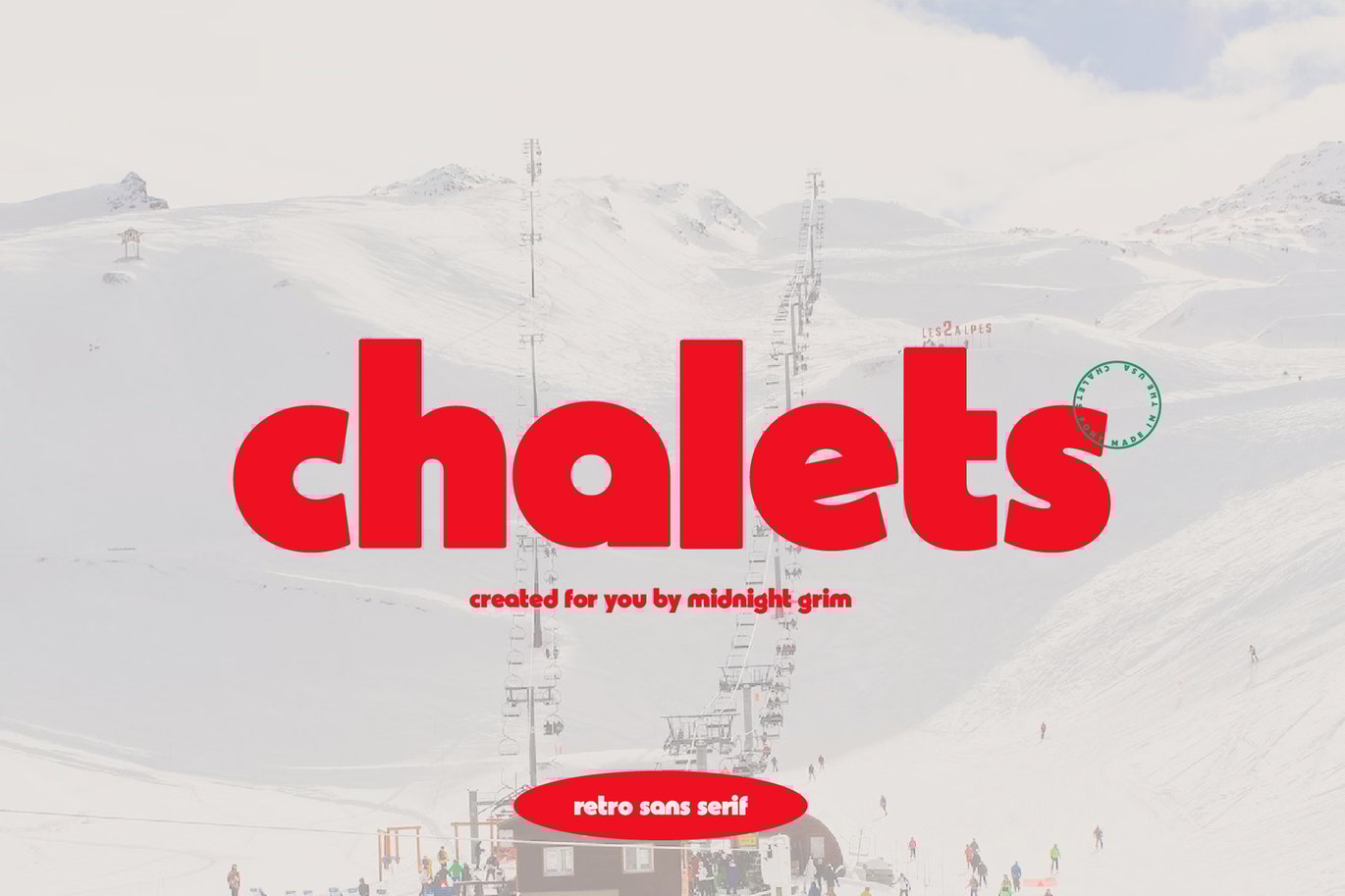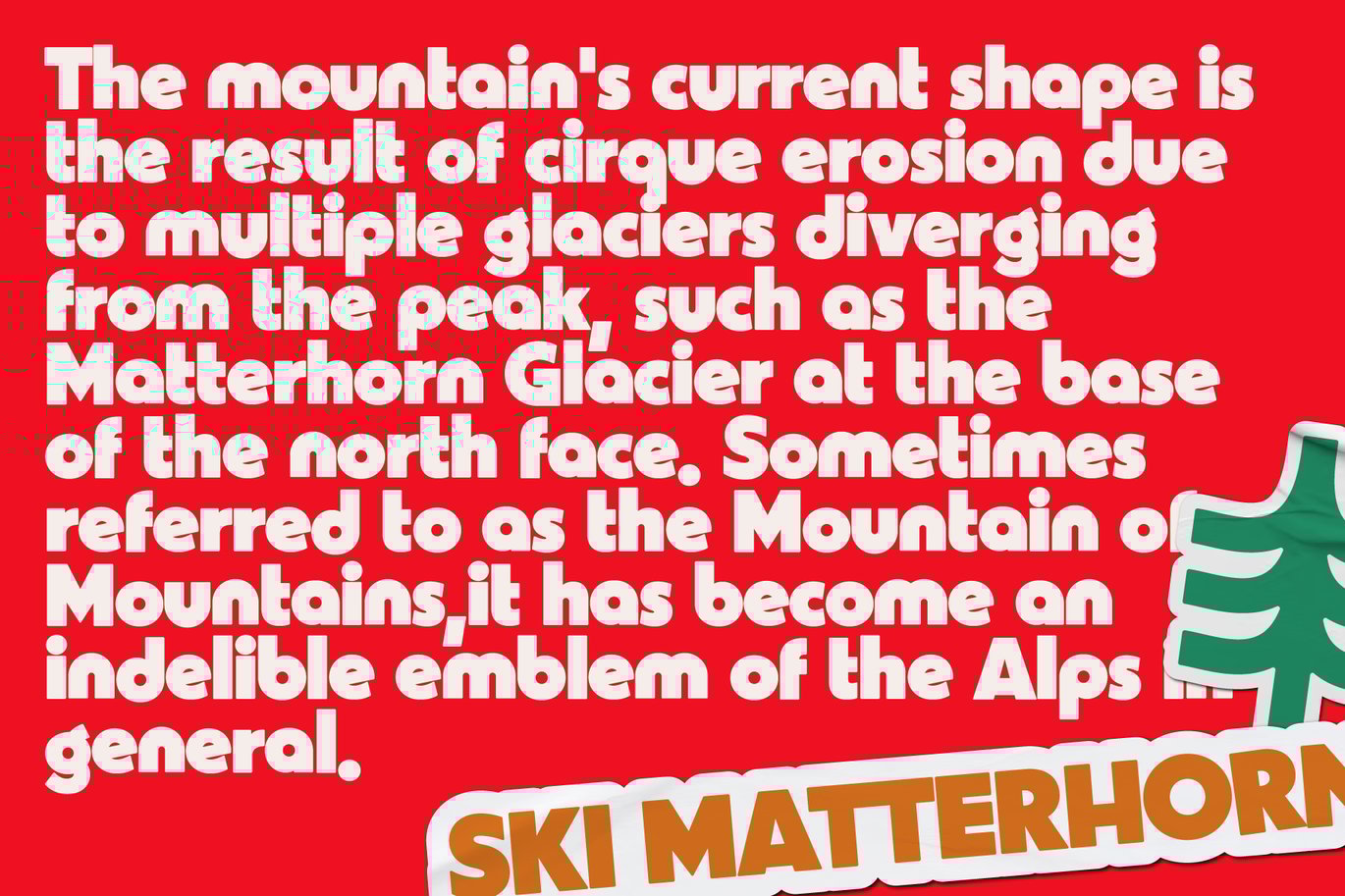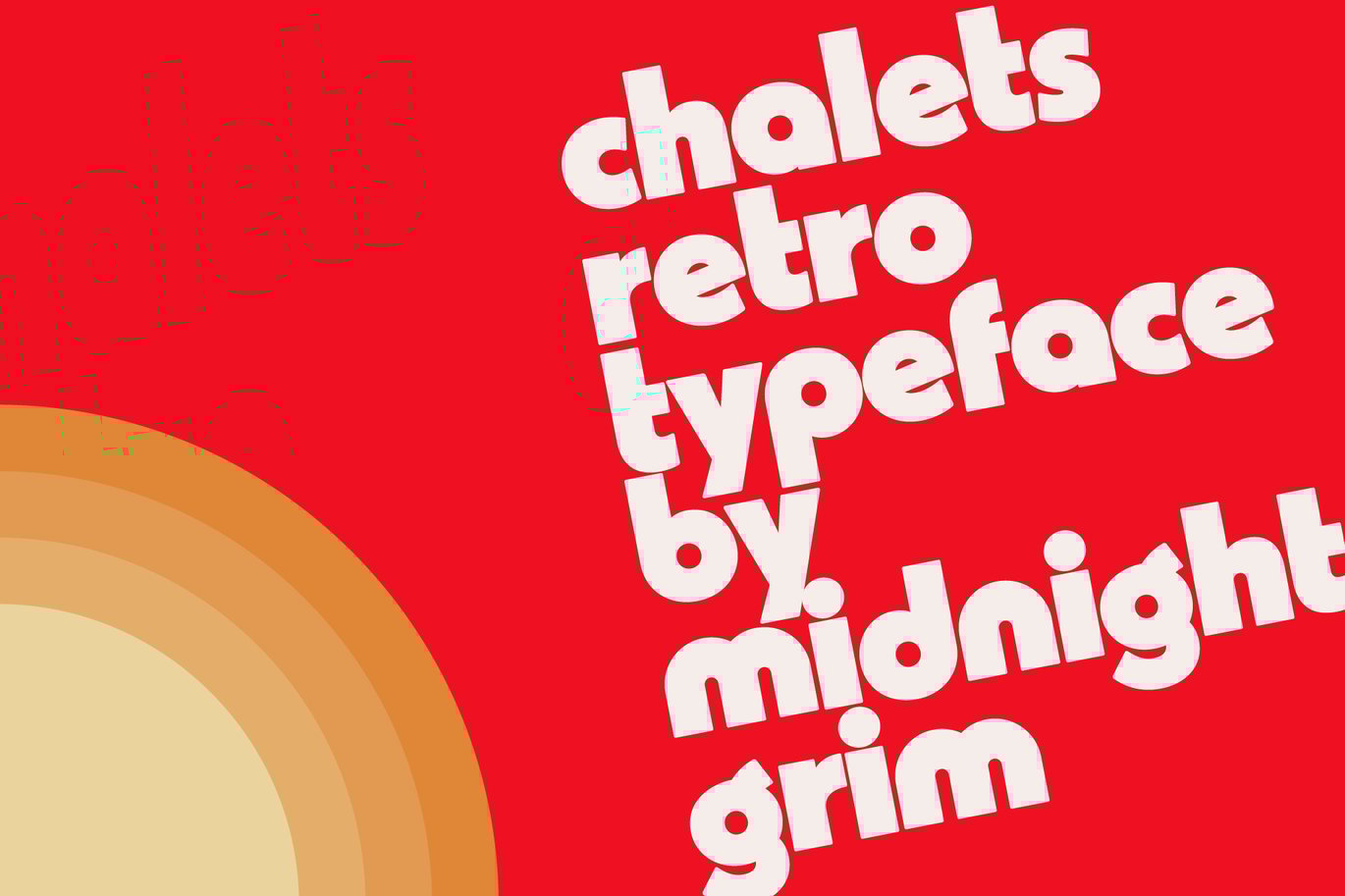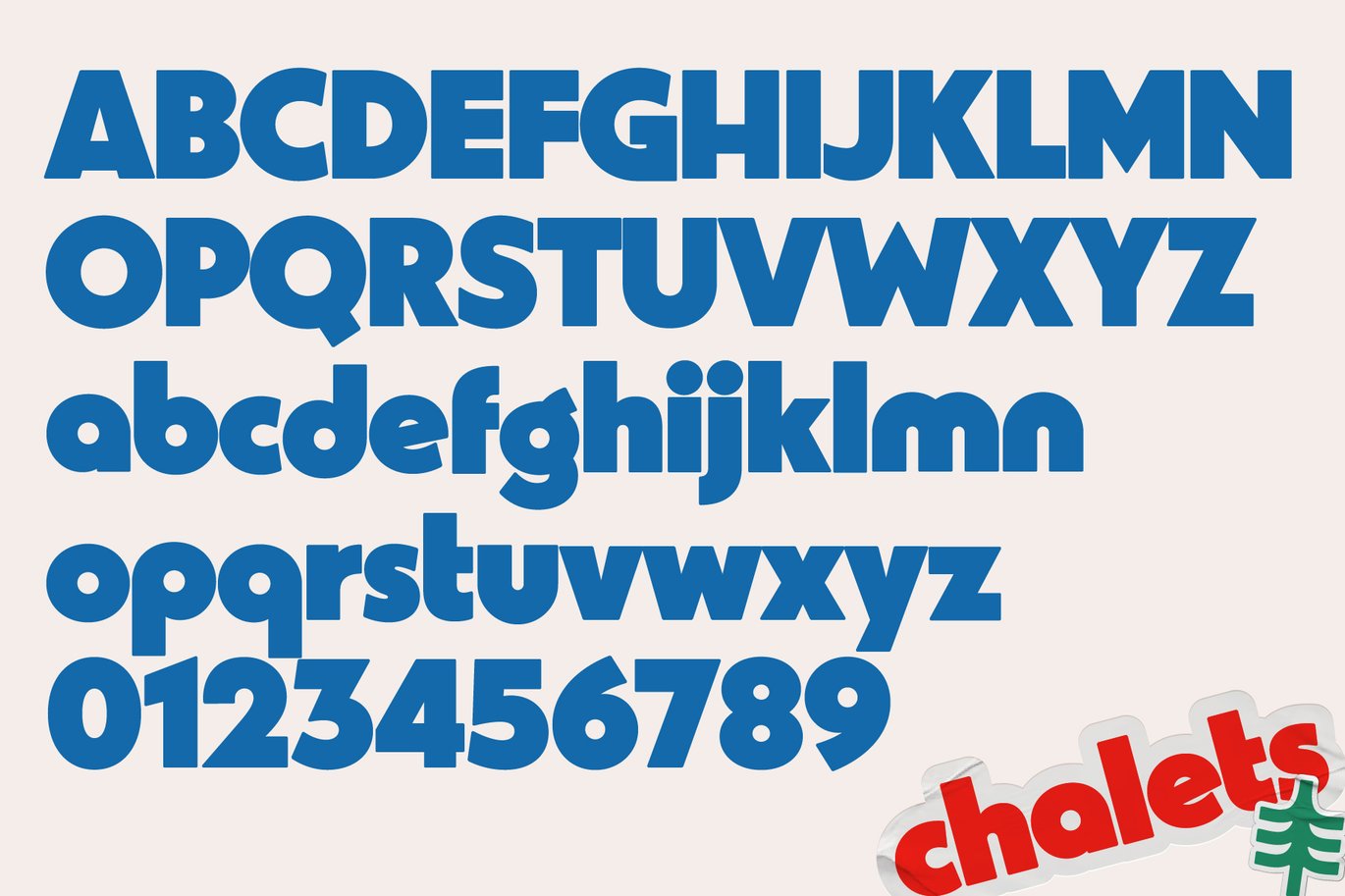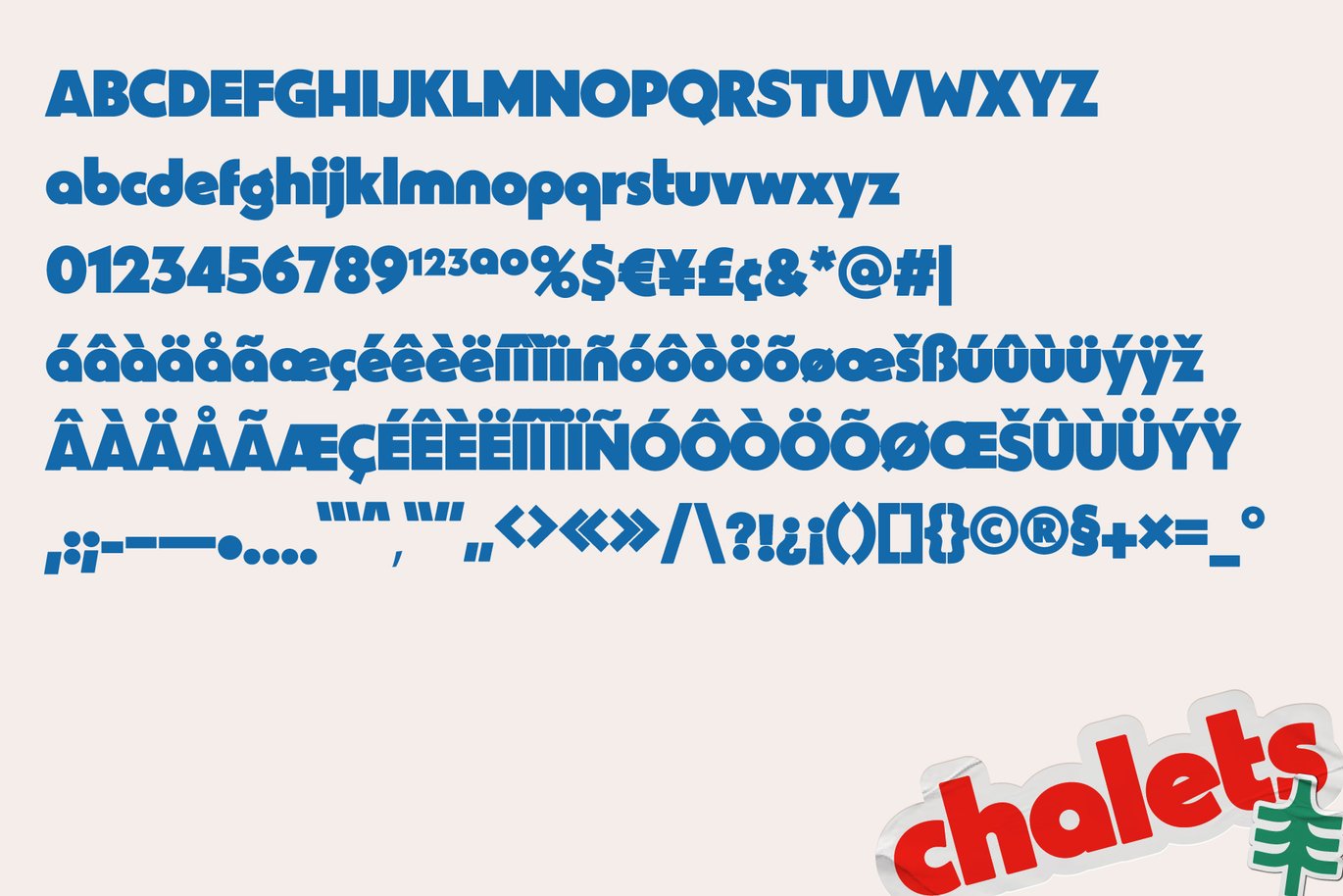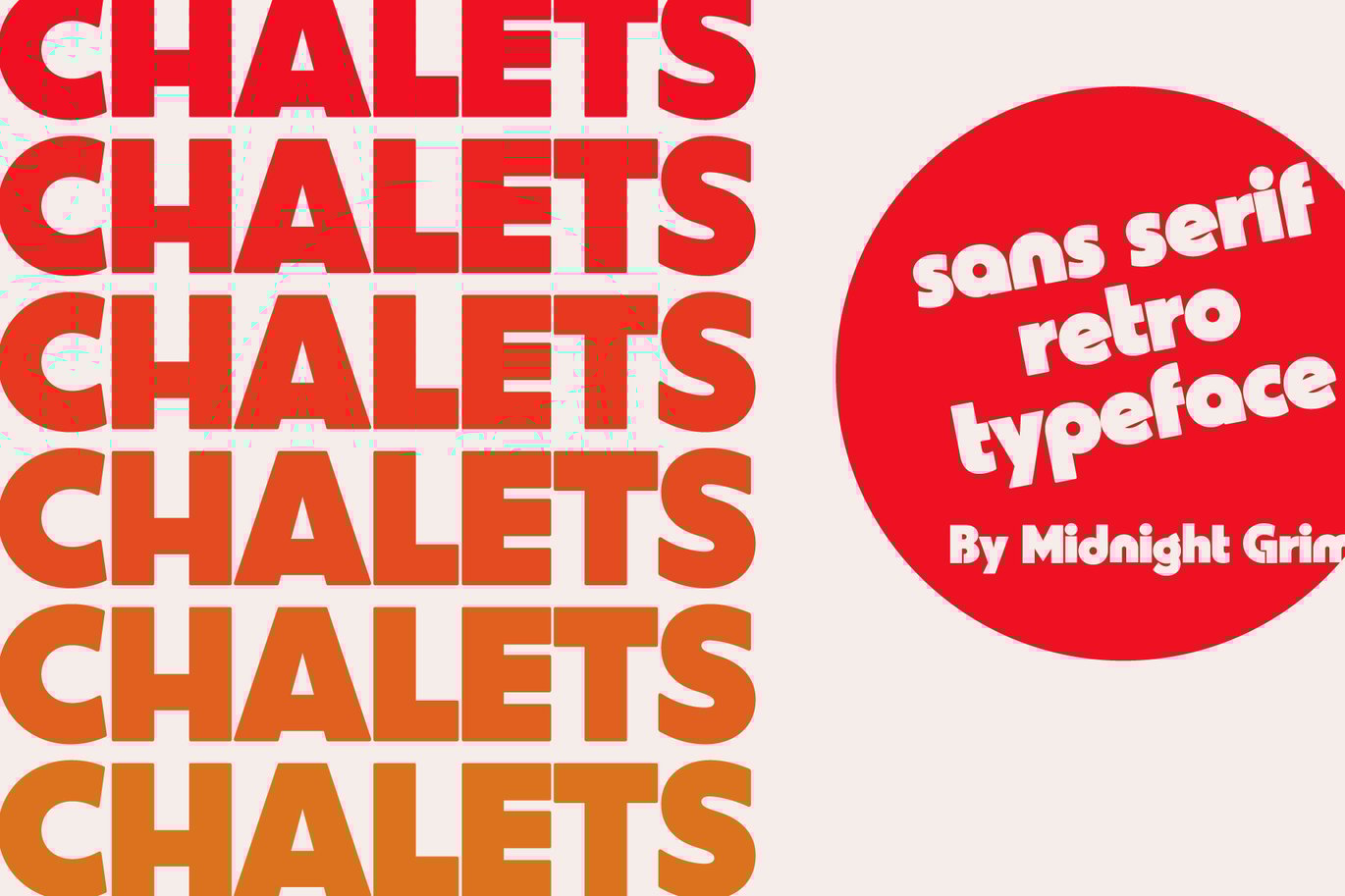
Chalets – Vintage Typeface
Ready to carve out some serious style with a typeface that shreds those vintage ski-inspired vibes? Meet Chalets, the font that’s dropping retro charm like fresh powder!
Chalets isn’t just another font – it’s a daring statement on the slopes! Its bold and powerful vibe grabs attention like a pro shredder catching big air. Perfect for carving out cool headlines and logos that ride high.
Chalets is so inviting, you’ll feel like you’re carving through fresh tracks with every letter. You’ll be eager to rock it in all your design adventures, from the peaks of branding projects to the terrain parks of posters and logos.
So, get your skis on, because Chalets is the real deal! It’s your secret weapon for unleashing a touch of vintage charm in all your creative rides.
Don’t miss the après-ski elegance of Chalets – it’s time to shred the slopes of design with some groovy good vibes! Grab it now and watch the retro magic unfold!